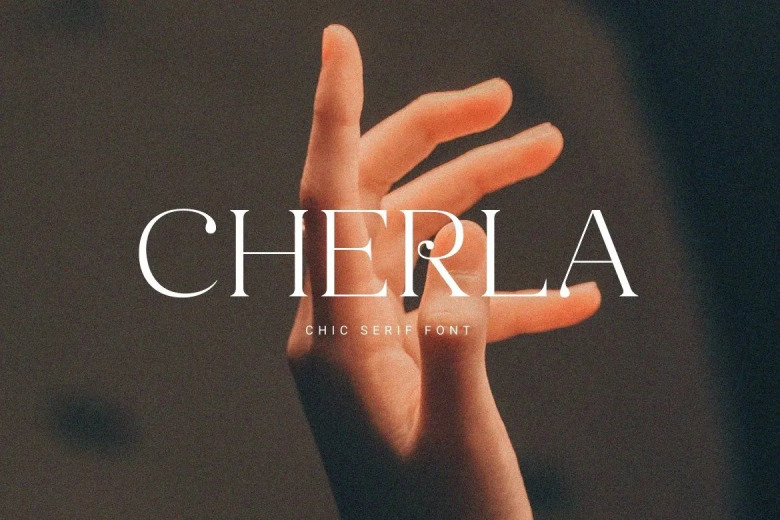
Cherla Font
The Sans Serif Font has a unique Cherla font and is excellent for advertising subjects. And of course, to master subjects which may present in different environments. It is an absolute beautiful font. This font is PUA encoded so you can access all of the glyphs and swashes easily!
Cherla Serif Font